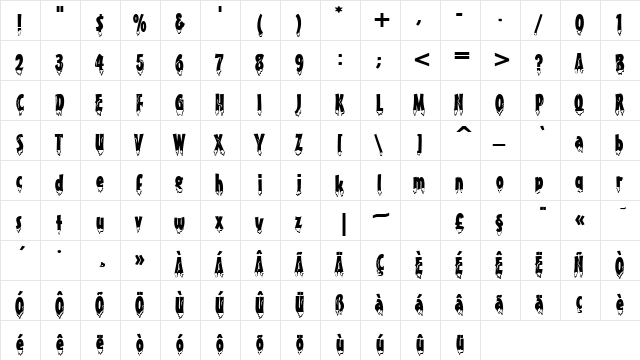
Eiszapfen DB Normal
Design Context for Eiszapfen DB Typeface
Eiszapfen DB is a composed and adaptable typeface that performs quietly and consistently across a wide range of design contexts.